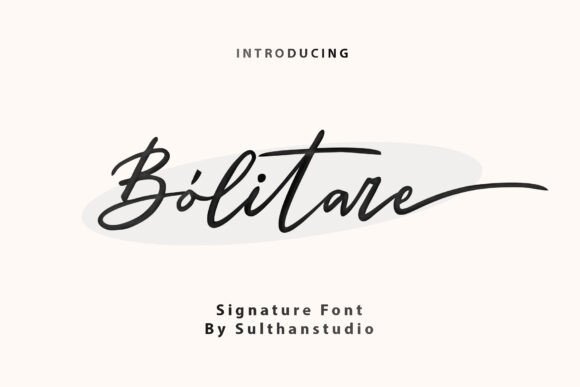
Unveiling the Singular Design Allure of Bolitare Signature
I’ll never forget the design moment that led me to discover Bolitare Signature. I was working on a romantic getaway stationery set for a client, and I was struggling to find the perfect font that exuded both elegance and playfulness. The project required a font that could convey love and sophistication, but everything I tried seemed to fall flat. That was until I stumbled upon Bolitare Signature, our trendy chic handwritten font that effortlessly breathes life and amorous quality into creative endeavors.
The Design Experience
Bolitare Signature is more than just a font – it’s an experience. The judicious balance of organic grace and bold expressiveness in this adaptable font sets the tone for uniqueness and novelty. Whether your project calls for love-infused stationery designs or subtly elegant branding work, Bolitare Signature envelops all creative ventures in its distinctive aura of chicness and refinement.
• ✨ Elegant and refined aesthetic that’s perfect for high-end designs
• ✅ Highly adaptable and versatile for various creative projects
• 💕 Love-infused and romantic feel that’s ideal for wedding and Valentine’s Day designs
• 🎨 Beautifully crafted with attention to detail and a focus on typographic excellence
While Bolitare Signature is an exceptional font, there are a few things to keep in mind:
• ⚠️ Some users may find the font a bit too ornate for certain projects, such as minimalist designs or body text.
• 🤔 The font’s bold expressiveness may not be suitable for very small font sizes or low-resolution applications.
Bolitare Signature was inspired by the beauty of handwritten typography and the romance of the Italian Renaissance. Our design team sought to create a font that would evoke the elegance and sophistication of this era, while still being approachable and modern.
Q: What type of projects is Bolitare Signature best suited for?
A: Bolitare Signature is ideal for high-end branding, stationery, wedding designs, and romantic getaways. Its elegant and refined aesthetic makes it perfect for designs that require a touch of sophistication.
Q: Is Bolitare Signature available in different font weights or styles?
A: Bolitare Signature is available in a single font weight, but its elegant and refined aesthetic makes it versatile enough to work well in various design applications.